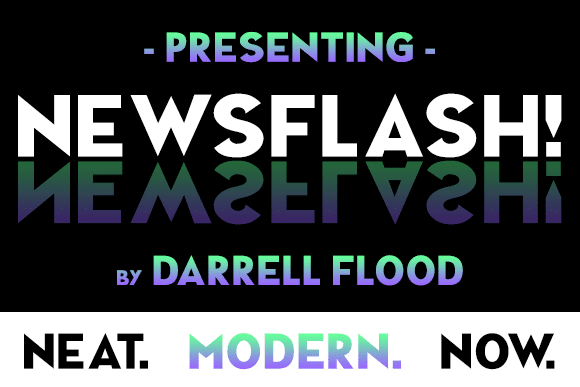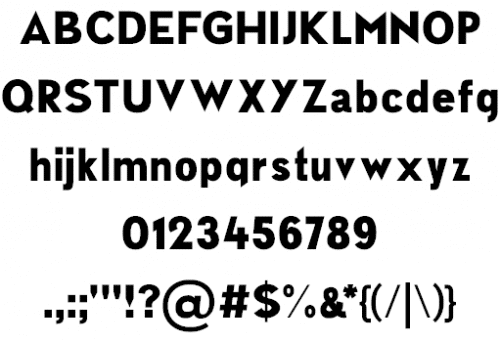
News Flash Font is a clean, crisp, modern typeface with full upper and lower case support. Sharp corners and smooth curves combine in pleasing forms. Perfect for magazines and flyers!
- Designer: Dadiomouse